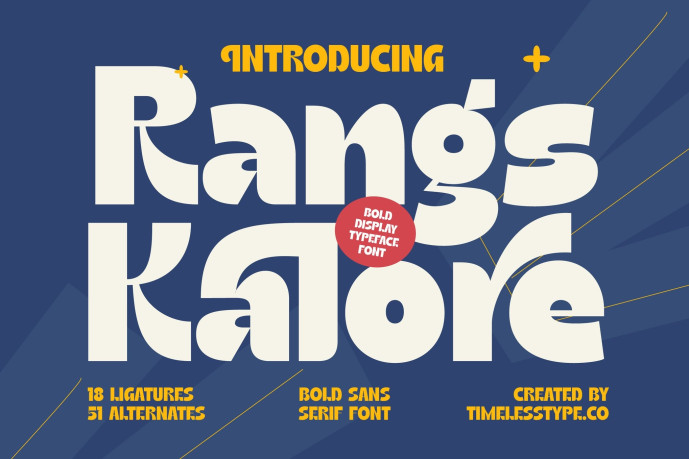
Rangs Kalore Font
Designer: timelesstypestudio
Rangs Katore Font is a bold sans serif display font with a modern retro aesthetic. Featuring 18 ligatures and 51 alternates, it combines sharp geometric lines with smooth, playful curves for a strong and unique look. Perfect for posters, headlines, branding, and editorial layouts, Rangs Katore delivers bold visual impact with a creative and dynamic feel — ideal for designers who want to make a statement.